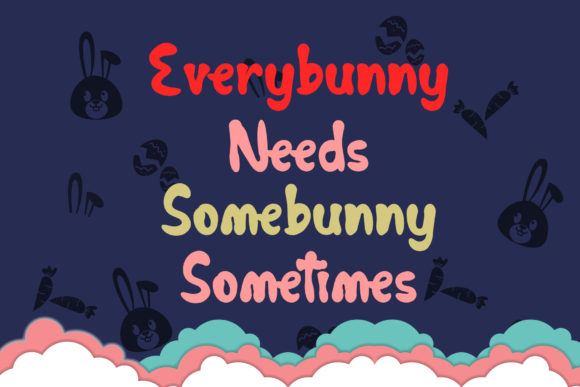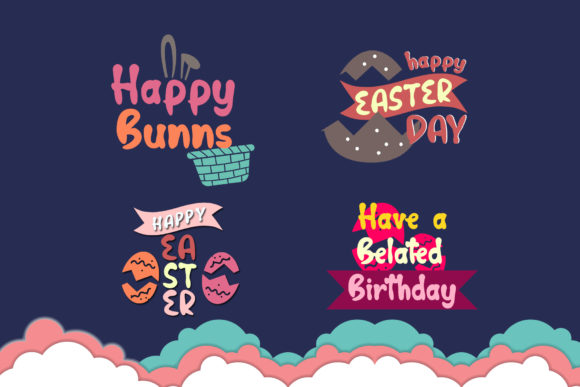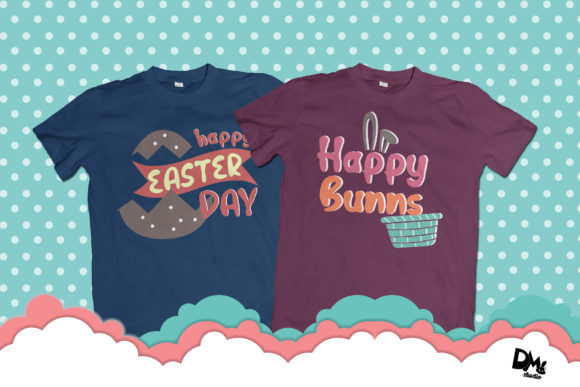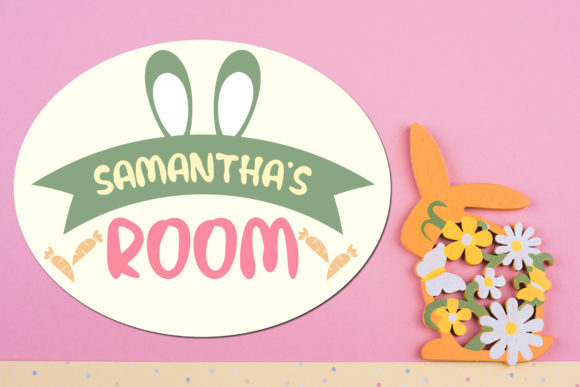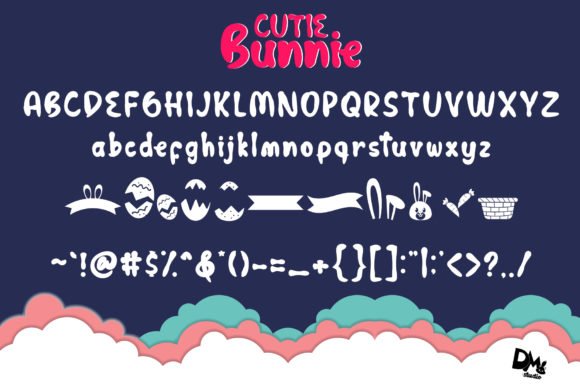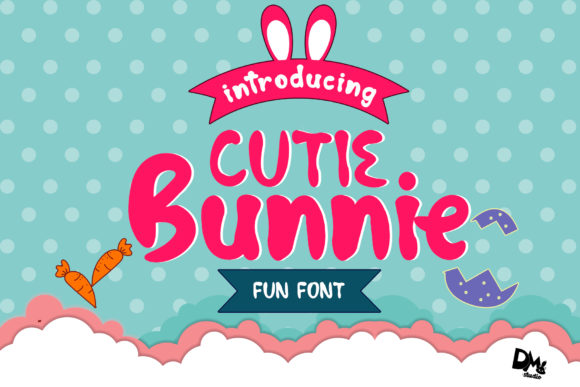
Introducing the Cutie Bunnie Font: Add a Quirky Touch to Your Designs
Are you looking for a font that can add a playful and charming touch to your designs? Look no further than the Cutie Bunnie Font! This adorable display font is perfect for creating eye-catching banners, Easter-themed doodles, and other graphics that require a quirky and lovely feel.
What is the Cutie Bunnie Font?
The Cutie Bunnie Font is a unique and creative typeface designed to bring a smile to your face. Its cute and playful design makes it ideal for a wide range of projects, from Easter-themed crafts to social media graphics, and even branding materials. The font includes a variety of characters, numbers, and symbols, as well as Easter-themed doodles and banners, making it a versatile and fun font to work with.
Key Features of the Cutie Bunnie Font
- Cute and Playful Design: The Cutie Bunnie Font features a charming and whimsical design that’s perfect for creating graphics that require a personal touch.
- Easter-themed Doodles and Banners: The font includes a range of Easter-themed doodles and banners, making it ideal for seasonal projects and designs.
- Quirky and Lovely Touch: The font’s unique design adds a quirky and lovely touch to any project, making it perfect for designers and crafters who want to create something truly special.
- Perfect for Display Graphics: The Cutie Bunnie Font is designed specifically for display graphics, making it perfect for headlines, titles, and other eye-catching elements.
Uses for the Cutie Bunnie Font
The Cutie Bunnie Font is a versatile typeface that can be used for a wide range of projects, including:
- Easter-themed Crafts and Designs: The font’s Easter-themed doodles and banners make it perfect for creating seasonal crafts and designs.
- Social Media Graphics: The font’s playful and charming design makes it ideal for creating social media graphics that require a personal touch.
- Branding Materials: The Cutie Bunnie Font can be used to create unique and eye-catching branding materials, such as logos, business cards, and letterheads.
- Party Decorations and Invitations: The font’s cute and playful design makes it perfect for creating party decorations and invitations that require a whimsical touch.
Why Choose the Cutie Bunnie Font?
There are many reasons why designers and crafters choose the Cutie Bunnie Font for their projects. Here are just a few:
- Unique and Creative Design: The Cutie Bunnie Font features a unique and creative design that’s sure to stand out from the crowd.
- Versatility: The font can be used for a wide range of projects, from Easter-themed crafts to social media graphics.
Tips for Using the Cutie Bunnie Font
Here are a few tips for using the Cutie Bunnie Font in your designs:
- Experiment with Different Sizes and Colors: The Cutie Bunnie Font looks great in a variety of sizes and colors, so don’t be afraid to experiment and find the perfect combination for your project.
- Pair with Other Fonts: The Cutie Bunnie Font can be paired with other fonts to create a unique and eye-catching design.
- Use for Headlines and Titles: The font is perfect for headlines and titles, so use it to add a touch of whimsy to your designs.
The Cutie Bunnie Font is a unique and creative typeface that’s perfect for designers and crafters who want to add a quirky and lovely touch to their projects. With its cute and playful design, Easter-themed doodles and banners, and versatility, this font is sure to become a favorite in your design arsenal. So why wait? Download the Cutie Bunnie Font today and start creating eye-catching graphics that are sure to delight!